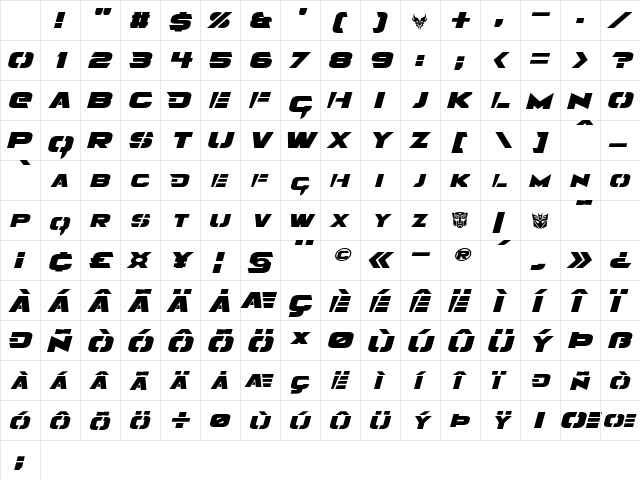
Angolmois is a composed and adaptable typeface that performs quietly and consistently across a wide range of design contexts. The slanted form adds forward momentum and visual energy.
Pro Tip: Use Angolmois for emphasis, pull quotes, and subheadings where its slanted energy can add rhythm to the layout.